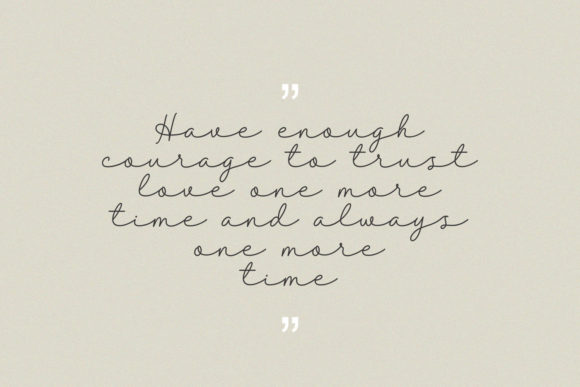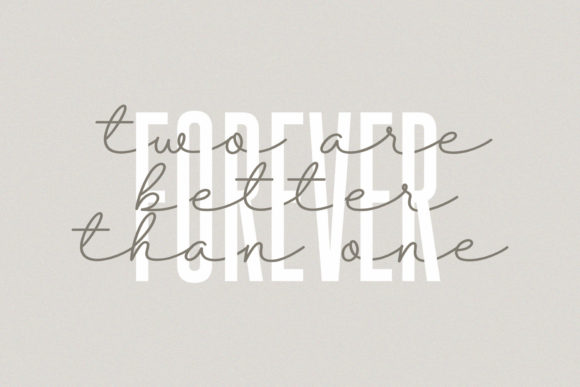
Belanda Font
Belanda is a stylish and vintage styled script font. This gentle font will look gorgeous on a variety of design ideas. It will add a joyful and romantic touch to each of your projects!